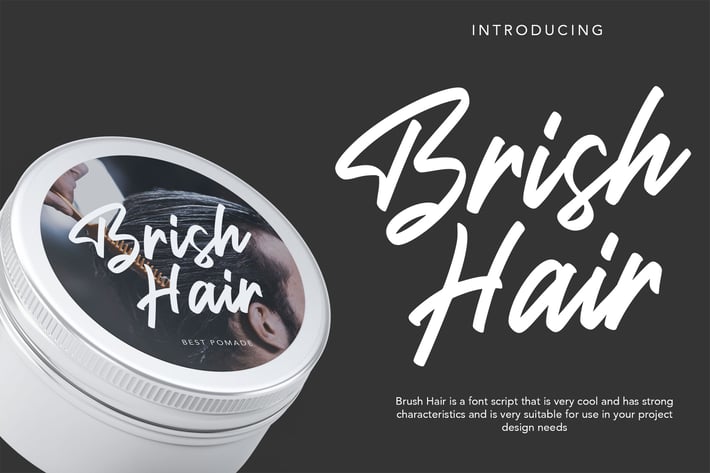
Brish Hair | Brush Script Font
Brish Hair | Brush Script Font with a calligraphy style, So beautiful on invitation like greeting cards, branding materials, business cards, quotes, posters, and more!